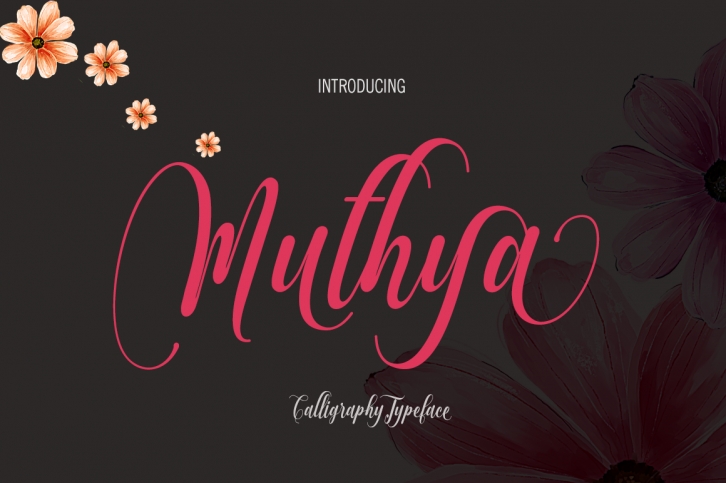
Muthya is a trendy and unique font with an authentic style. It was designed by groens.co and it's a great choice for creative people who need such a font. It was released on July 5, 2017 and the file size is 6.78 MB. Muthya will add an organic vibe to any design idea!